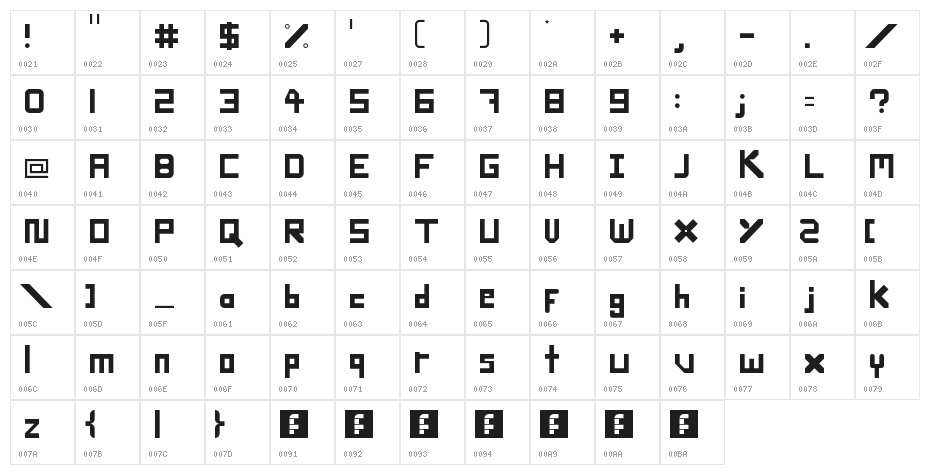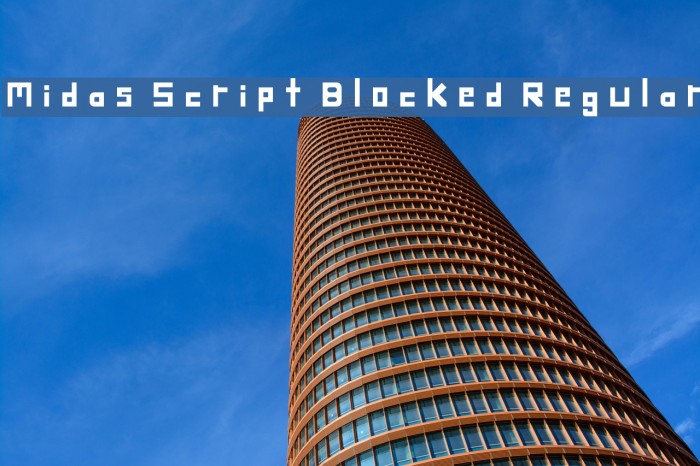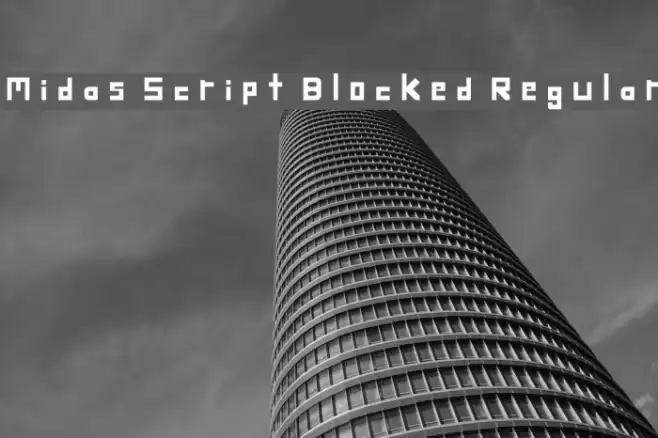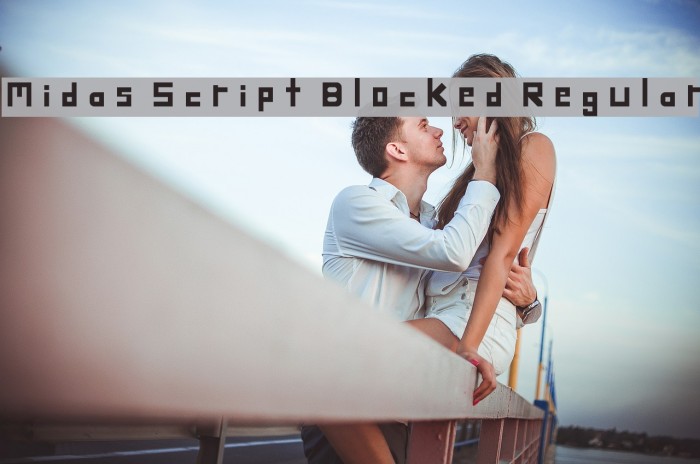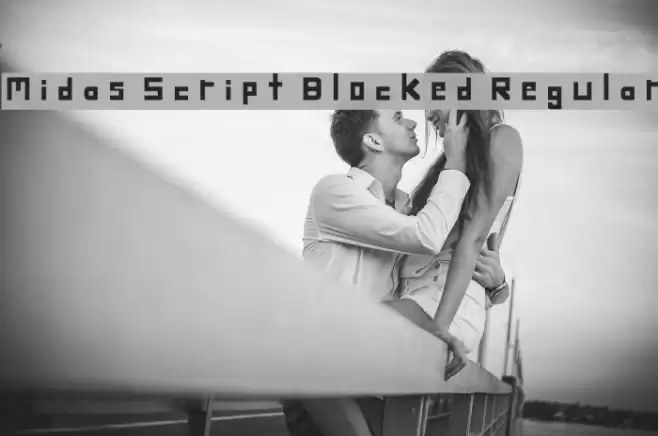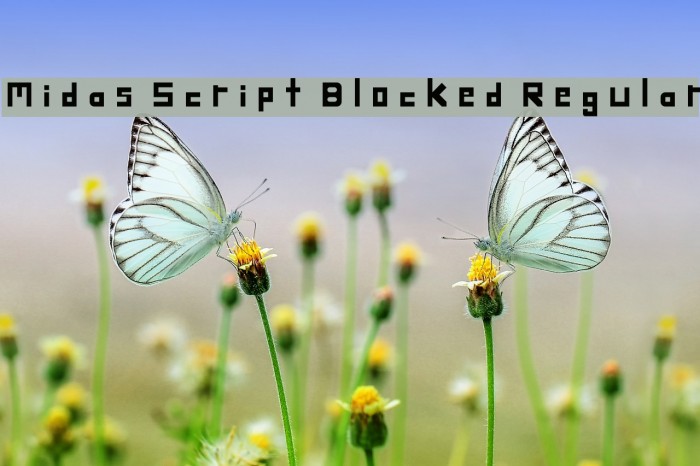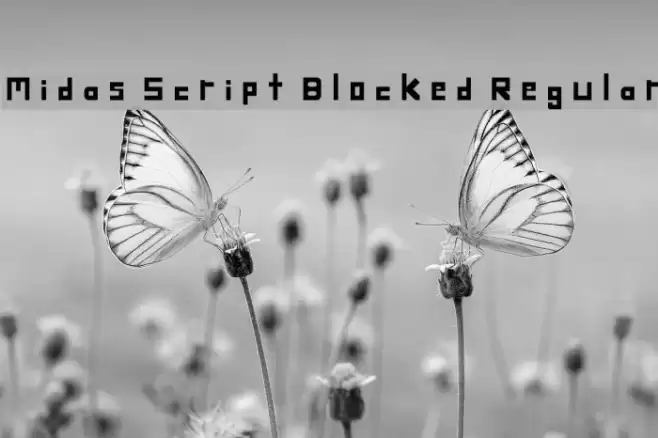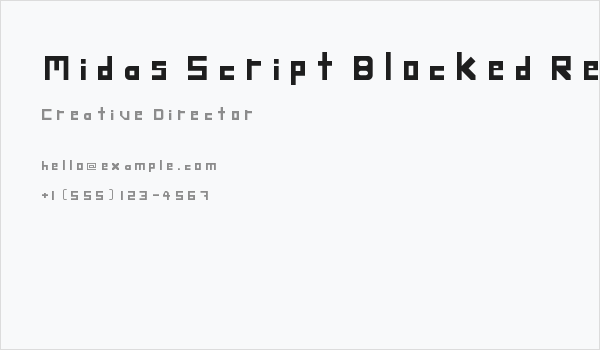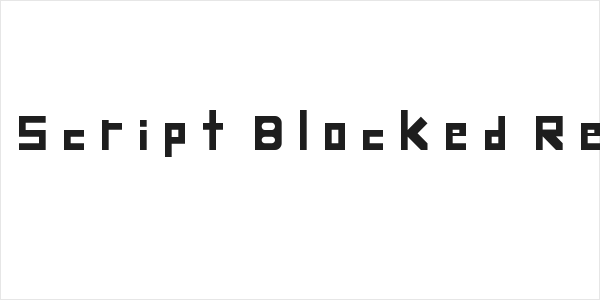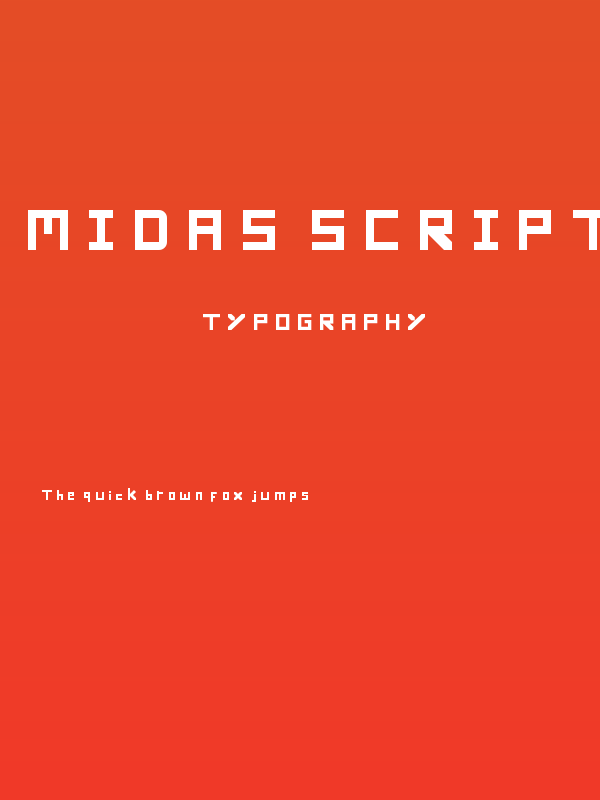
Midas Script Blocked Regular Font
Midas Script Blocked Regular Description
This font features a bold, geometric design with a blocky, angular appearance. The characters are uniformly structured, giving a sense of stability and strength. The uppercase and lowercase letters maintain a consistent height, contributing to a cohesive look. The numerals and special characters follow the same geometric style, enhancing the overall uniformity. The font's design is reminiscent of digital or retro aesthetics, making it suitable for projects that require a modern yet nostalgic feel. Its boldness ensures high visibility, making it ideal for attention-grabbing headlines or titles.
| Proposed Projects | Ideal for digital art, video game graphics, retro-themed posters, and technology branding. |